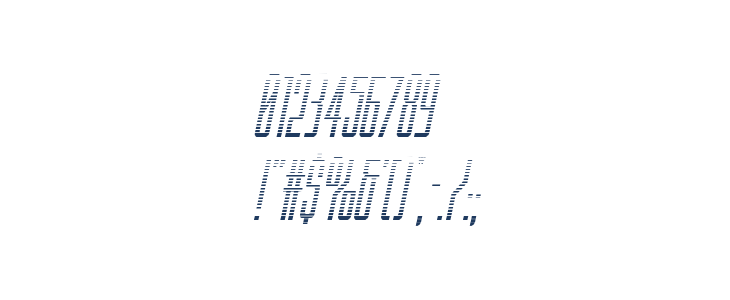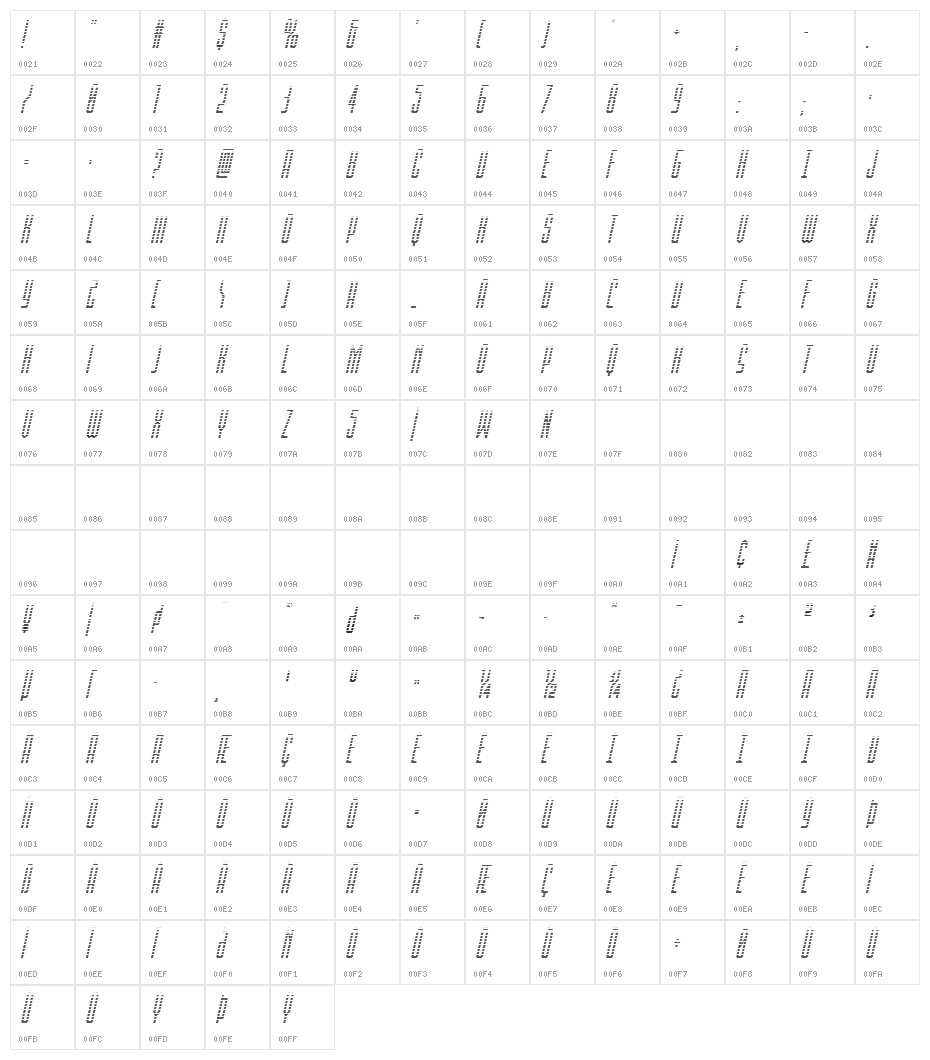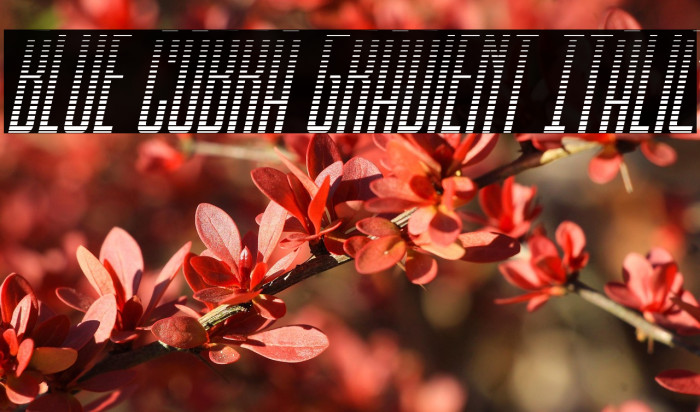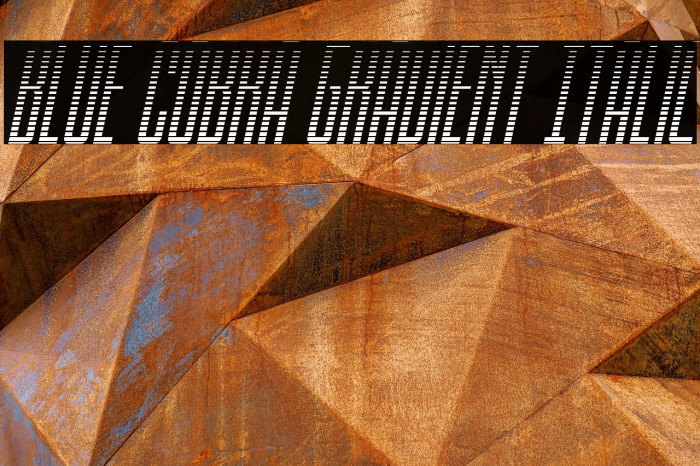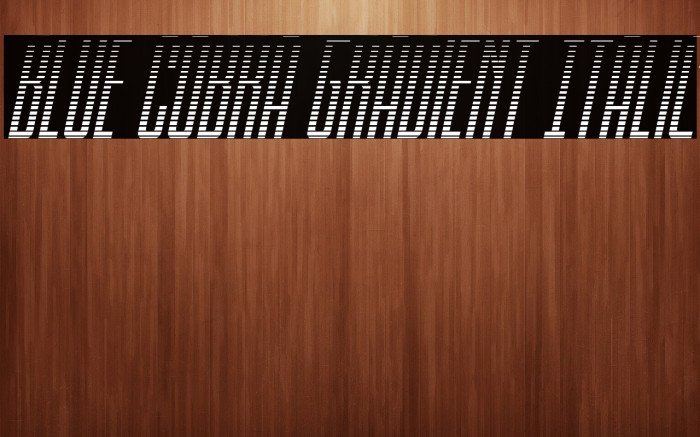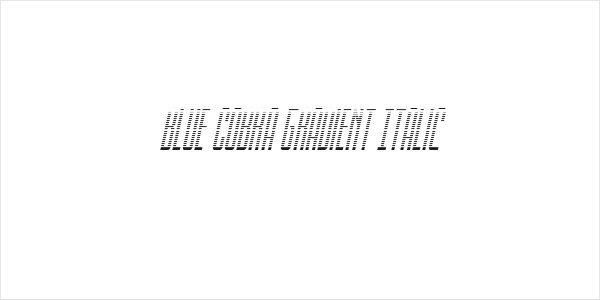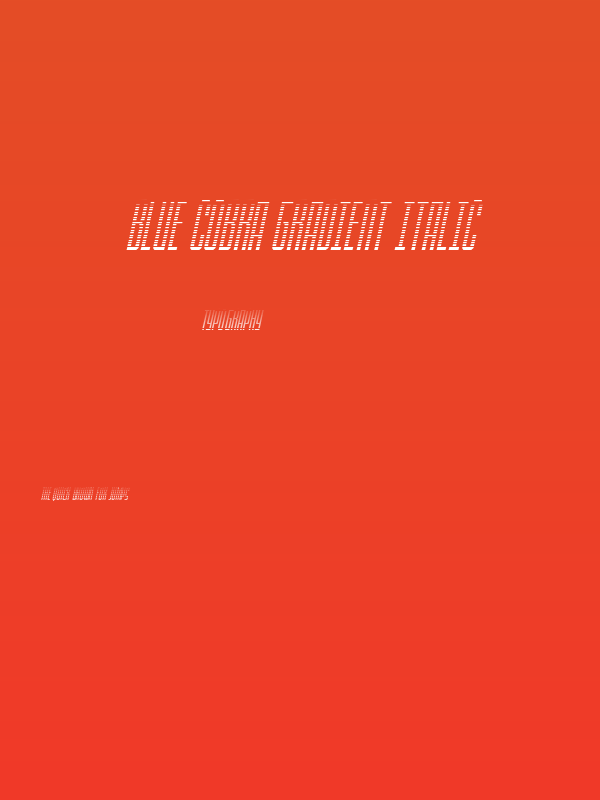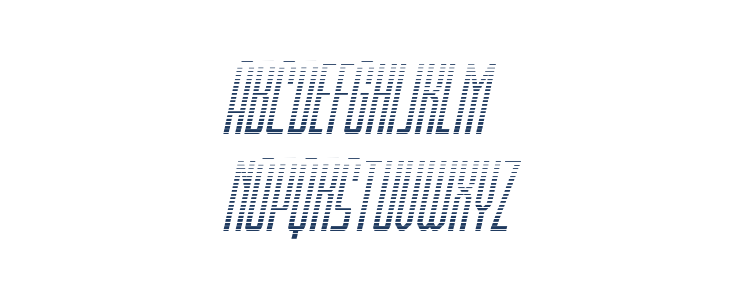
Blue Cobra Gradient Italic Font
Blue Cobra Gradient Italic Description
This font features a dynamic and modern design with a distinct italic slant, giving it a sense of motion and energy. The characters are composed of horizontal lines that create a gradient effect, adding depth and a futuristic feel. The uppercase and lowercase letters maintain a consistent style, with sharp angles and clean lines. The numerals and special characters follow the same design principles, ensuring uniformity across all glyphs. This font's unique appearance makes it stand out, ideal for projects that require a bold and eye-catching typeface.